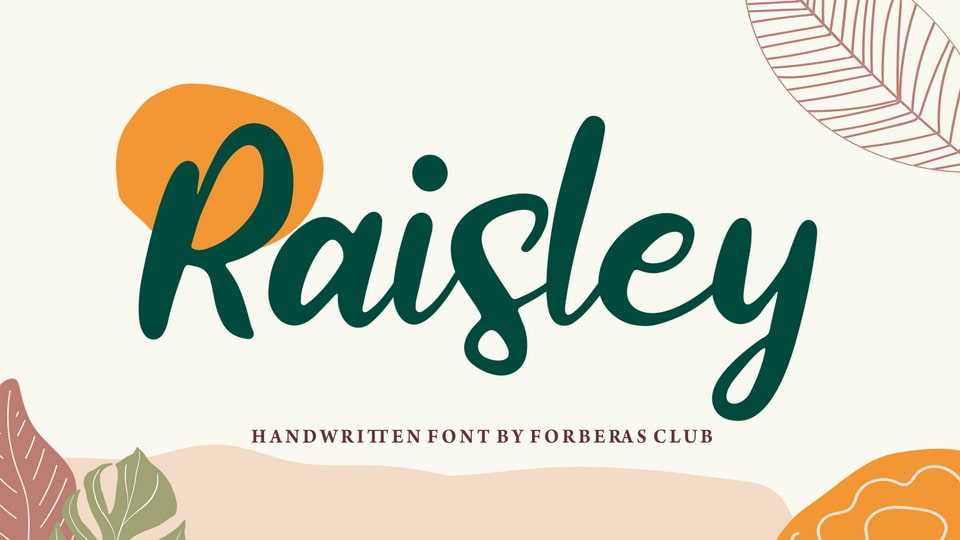
Download Raisley font, a script typeface inspired by modern and ligature characters. It is especially designed for luxury, elegant, feminine projects.